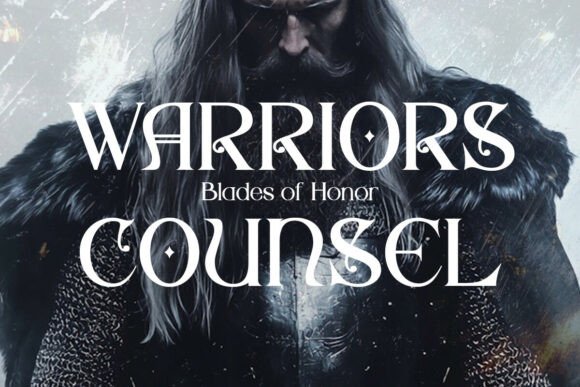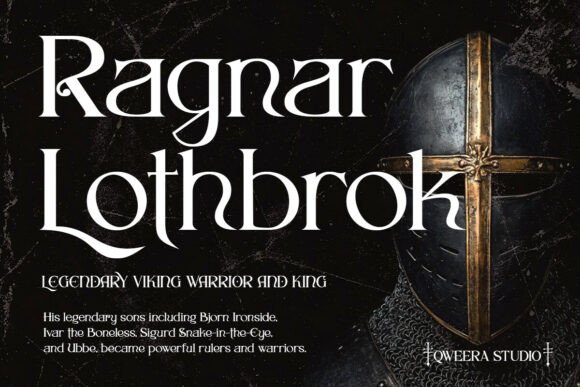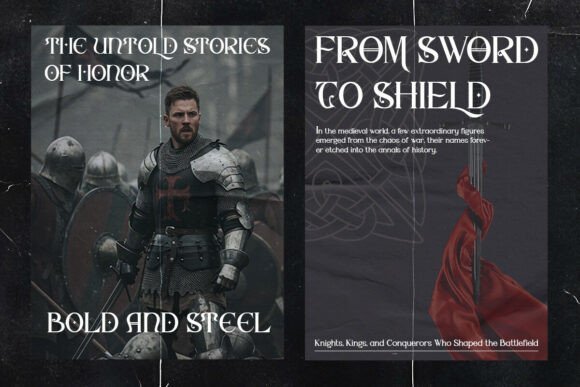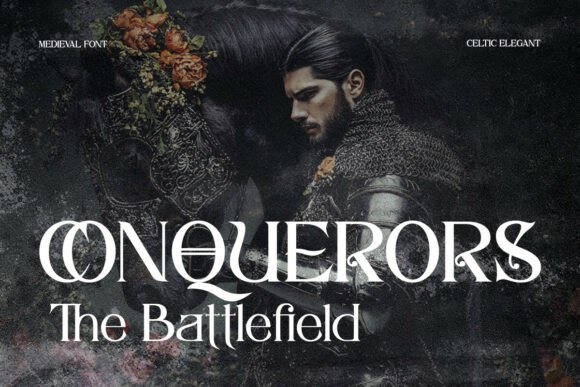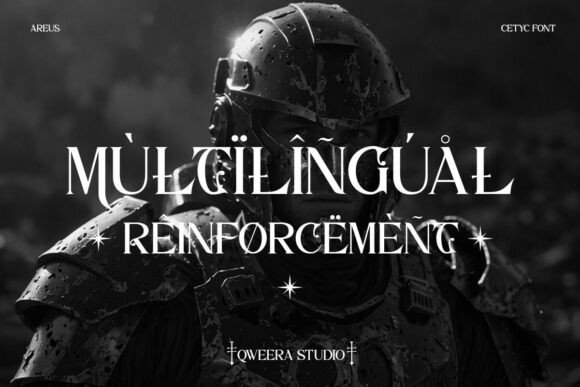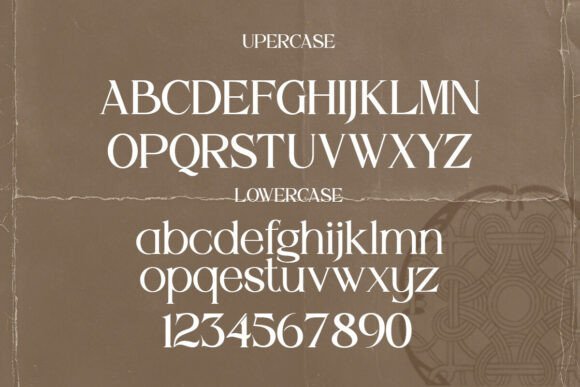
Unlock the Timeless Elegance of Celtic Design with the Areus Font
As a designer, there’s no thrill quite like the moment when a project comes together and you see your vision take shape. It’s the culmination of hours of brainstorming, sketching, and refining – and it’s a feeling that never gets old. For me, that moment often starts with the perfect font. And when it comes to creating a truly timeless and authentic design, there’s one font that stands out from the rest: the Areus Font.
Areus Font is a masterful blend of vintage charm and modern versatility, perfect for designers who want to add a touch of Celtic heritage to their work. With its intricate details, elegant serifs, and stylish alternates, this font is a game-changer for branding, logo design, packaging, and posters. Whether you’re crafting a vintage-inspired logo or designing a poster with a historical touch, Areus Font ensures your work radiates authenticity and timeless elegance.
Areus Font Key Features
- Font Size: The font family includes 6 weights, ranging from Thin (100) to Extra Bold (800), providing flexibility for various design applications.
- Unique Characteristics: The font features a unique blend of modern and vintage elements, with subtle texture and subtle ornamentation, giving it a distinctive and elegant appearance.
- Character Count: The font family includes a vast character set, with over 1,500 glyphs, covering a wide range of characters, symbols, and punctuation marks.
Areus Font Review
I recently had the chance to work with the Areus Font, and I must say it’s an interesting addition to any design project. Here’s my honest review.
- Unique and modern design aesthetic: The Areus Font has a sleek and modern look that’s perfect for any design project that needs a touch of sophistication.
- Highly legible: Despite its modern design, the font is surprisingly easy to read, making it a great choice for body text and headlines alike.
- Supports a wide range of languages: Areus Font is a great choice for projects that require multilingual support, as it includes a wide range of language support.
- Limited character set: While the font supports a wide range of languages, it’s character set is still relatively limited compared to other fonts.
- Not ideal for small text: Due to its modern design, Areus Font can be difficult to read at small font sizes, making it less suitable for projects that require extensive use of small text.
Overall, I think the Areus Font is a great choice for projects that need a modern and sophisticated look. While it may have some limitations, its unique design and high legibility make it a solid addition to any design project.
For optimal results, use Areus Font in conjunction with bold or italic styles to add emphasis to your text. You can also use it to create eye-catching headings or titles.
Areus Font is ideal for creating modern, sleek designs for business cards, brochures, and websites. It’s also great for creating headings and titles in reports, presentations, and articles.
Use Areus Font to add a touch of sophistication and elegance to your designs.